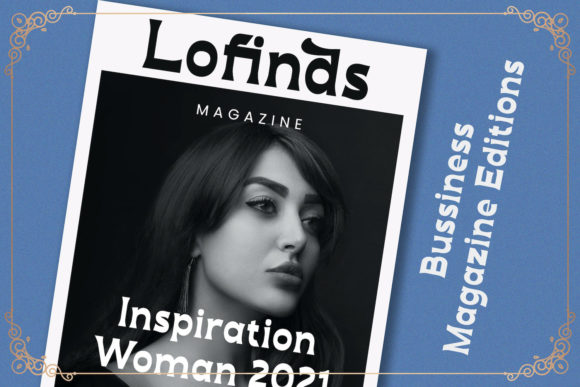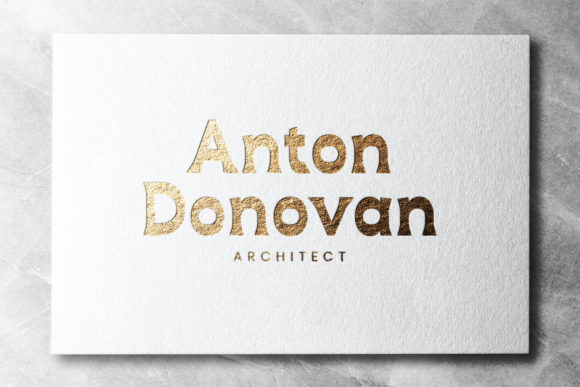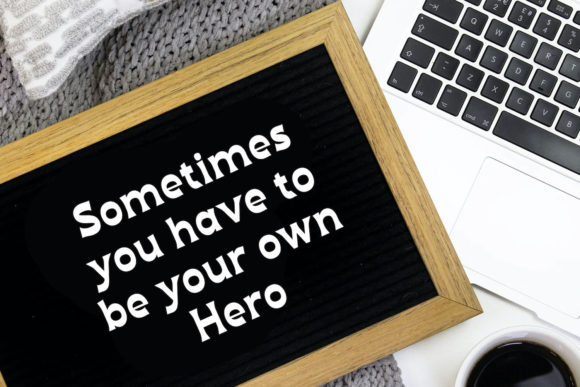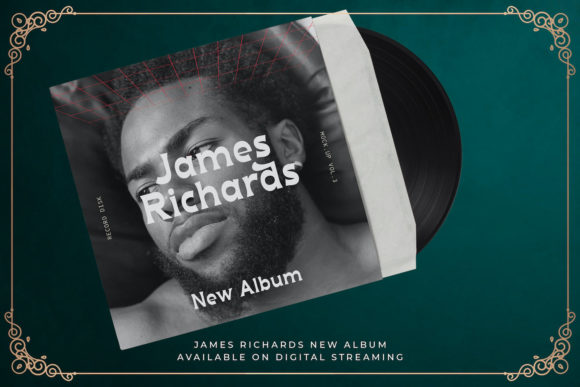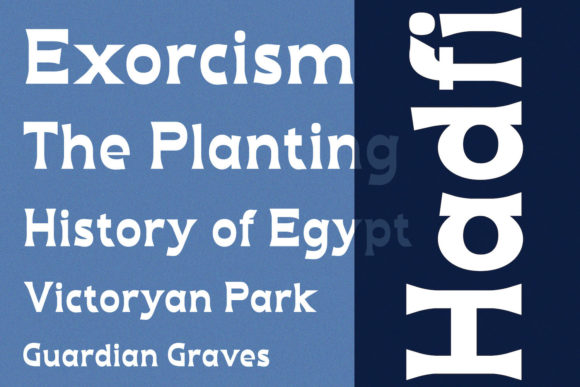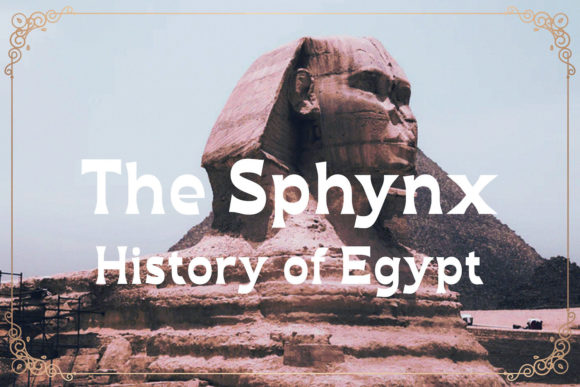
Introduction to Hadfim Font
As a designer, you know the thrill of stumbling upon the perfect font to elevate your creative project. It’s like discovering a hidden treasure that instantly gives your design a boost of sophistication and style. For me, that moment came when I first laid eyes on the Hadfim Font. Its bold, thick letters and smooth curves immediately caught my attention, and I knew I had to learn more.
The Hadfim Font is a design resource that’s perfect for fashion branding or editorial designs. Its high-quality, detailed design makes it a valuable addition to any project. Whether you’re working on a free download or a paid design, the Hadfim Font is sure to impress. With its transparent background, it’s easy to integrate into any design, and its versatility makes it a great choice for designers who want to add a touch of elegance to their work.
Key Features of Hadfim Font
- Unique, hand-drawn style with a transparent background, ideal for use in graphic design and digital art.
- Perfect for use in logos, branding, and other design elements where a unique and creative font is desired.
Honest Review: Hadfim Font
I recently stumbled upon the Hadfim Font, and I must say it’s been a great addition to my design arsenal. The first thing I noticed was its high quality and sleek design, making it perfect for any creative project.
Here are some features that work well:
- ✨ Transparent background: The font’s transparent background allows for seamless integration with any design element, giving you complete creative control.
- ✨ High-quality design: The Hadfim Font is designed to perfection, ensuring that your designs look professional and polished.
- ⚠️ Limited font styles: While the Hadfim Font is well-designed, it only comes in a few font styles, which might limit its versatility for some designers.
Overall, I’m impressed with the Hadfim Font. It’s a high-quality design resource that’s perfect for any creative project. While it may have some limitations, its free download and transparent background make it an excellent choice for designers looking for a reliable font.
Common Use Cases for Hadfim Font
The Hadfim Font is suitable for a variety of creative projects, including graphic design, digital art, and typography. It’s a great resource for designers, artists, and writers looking to add a unique touch to their work.